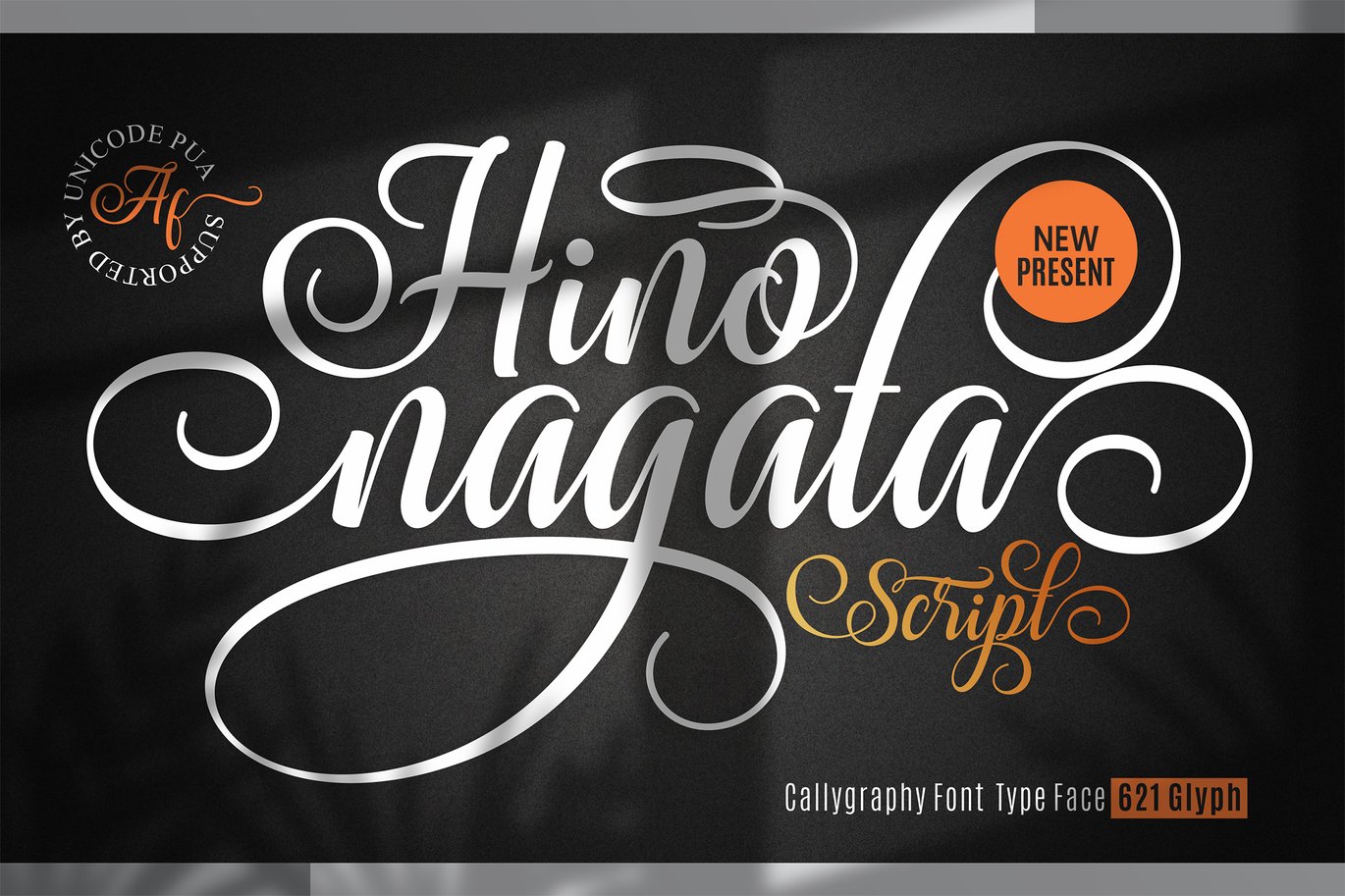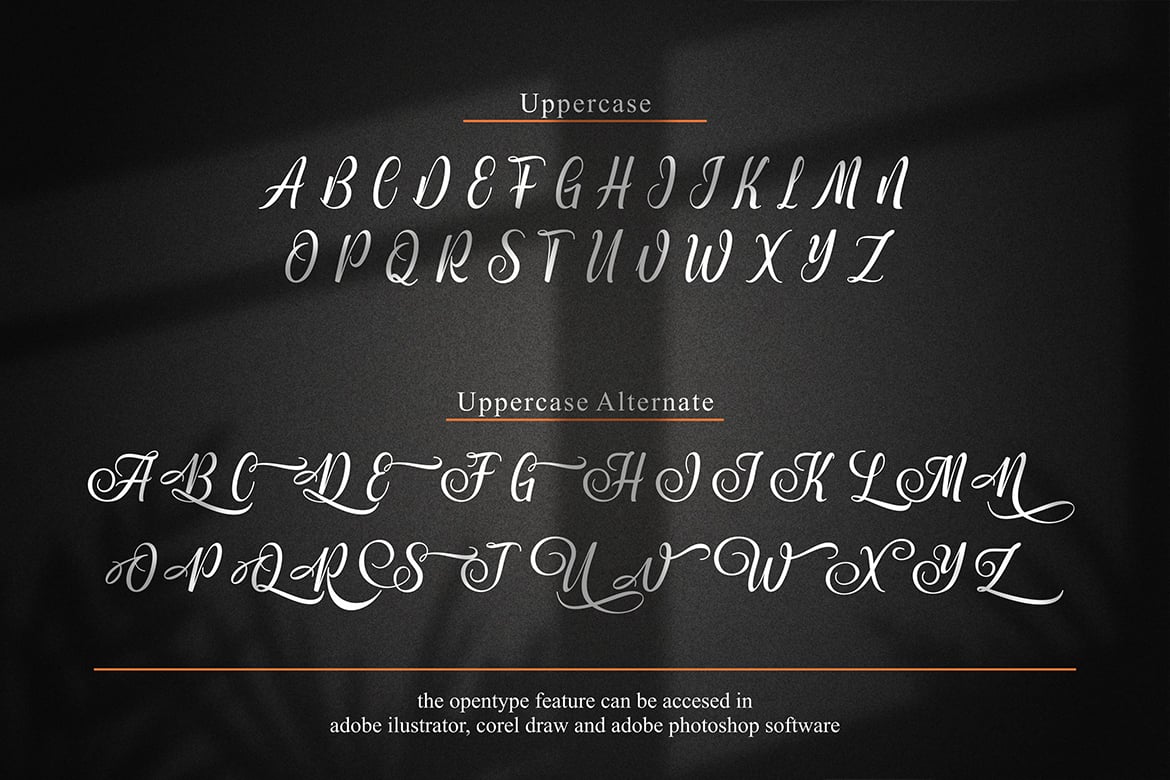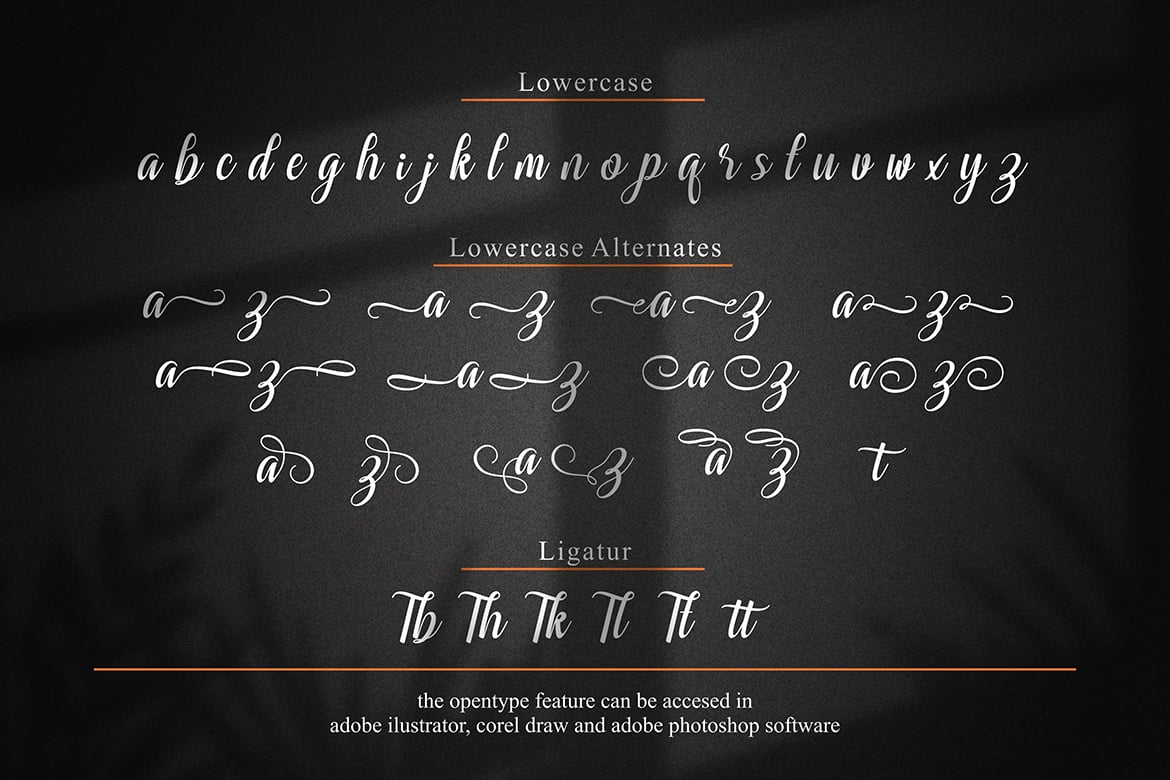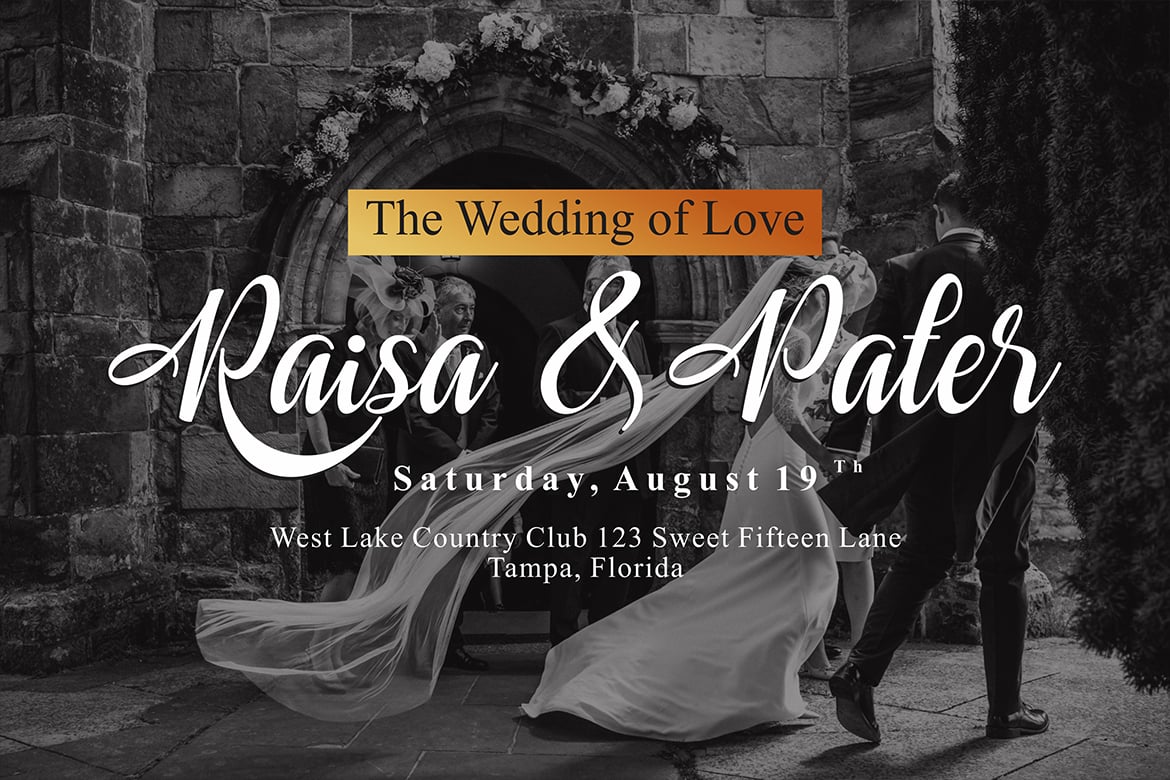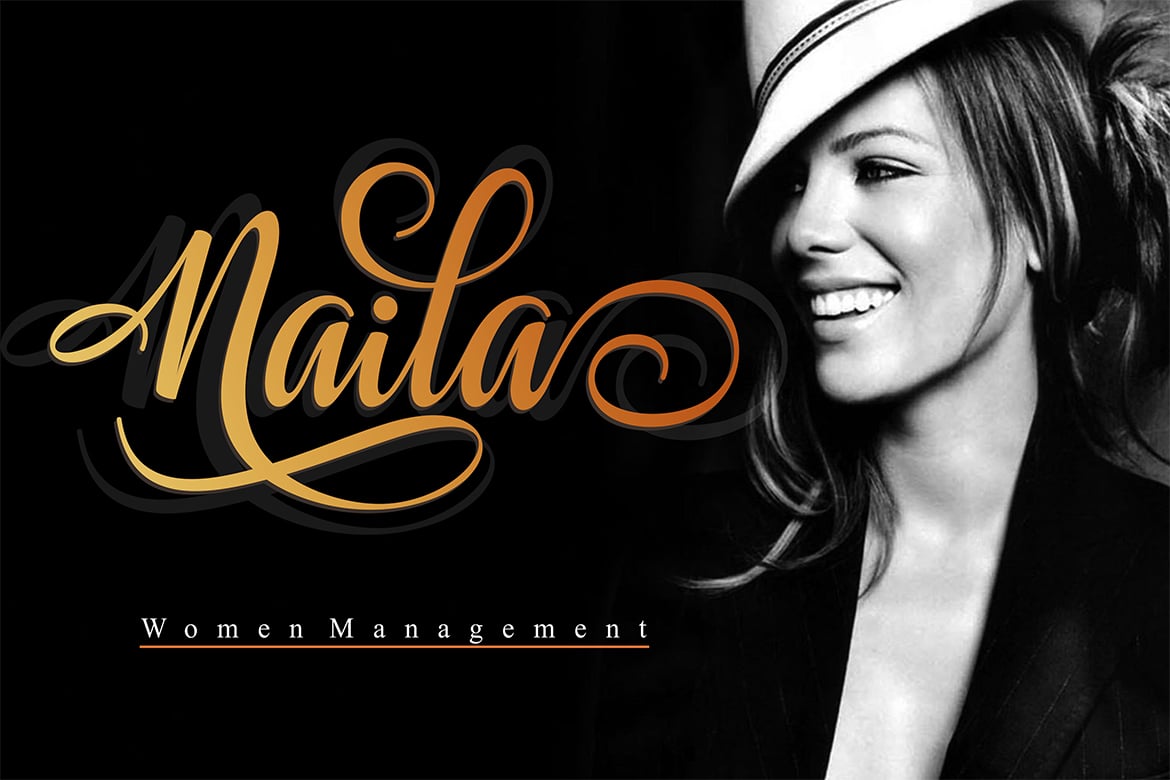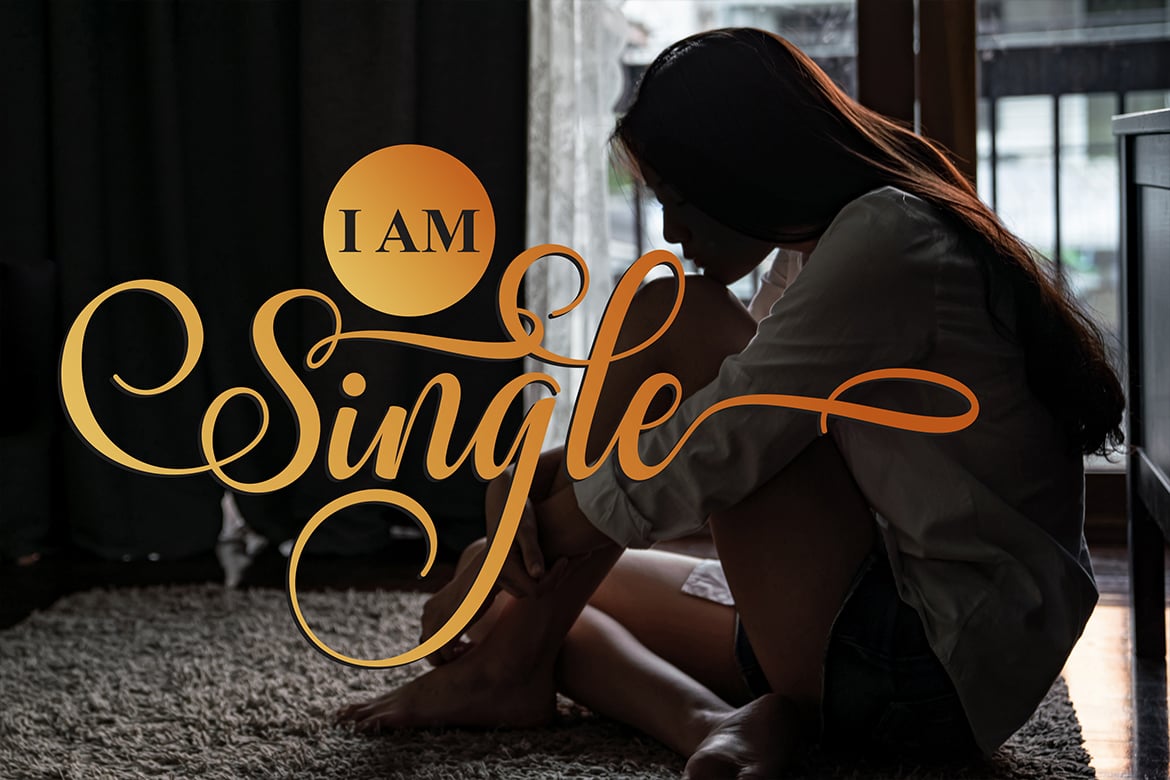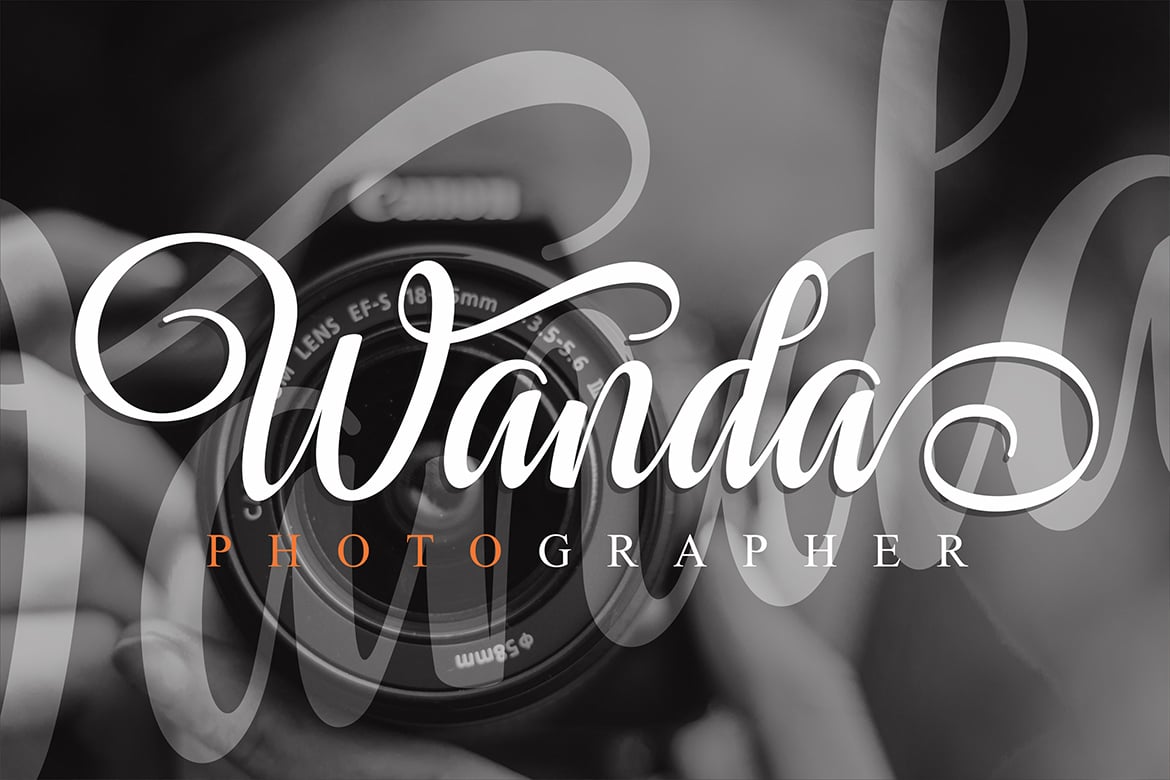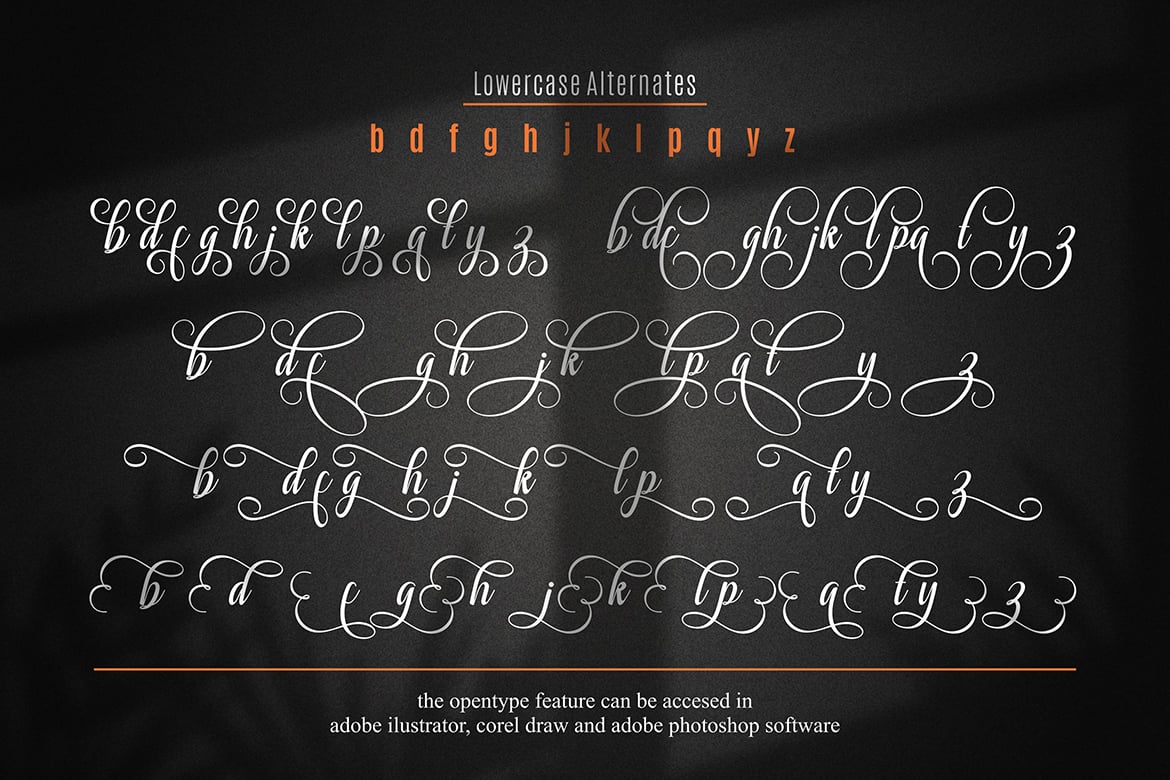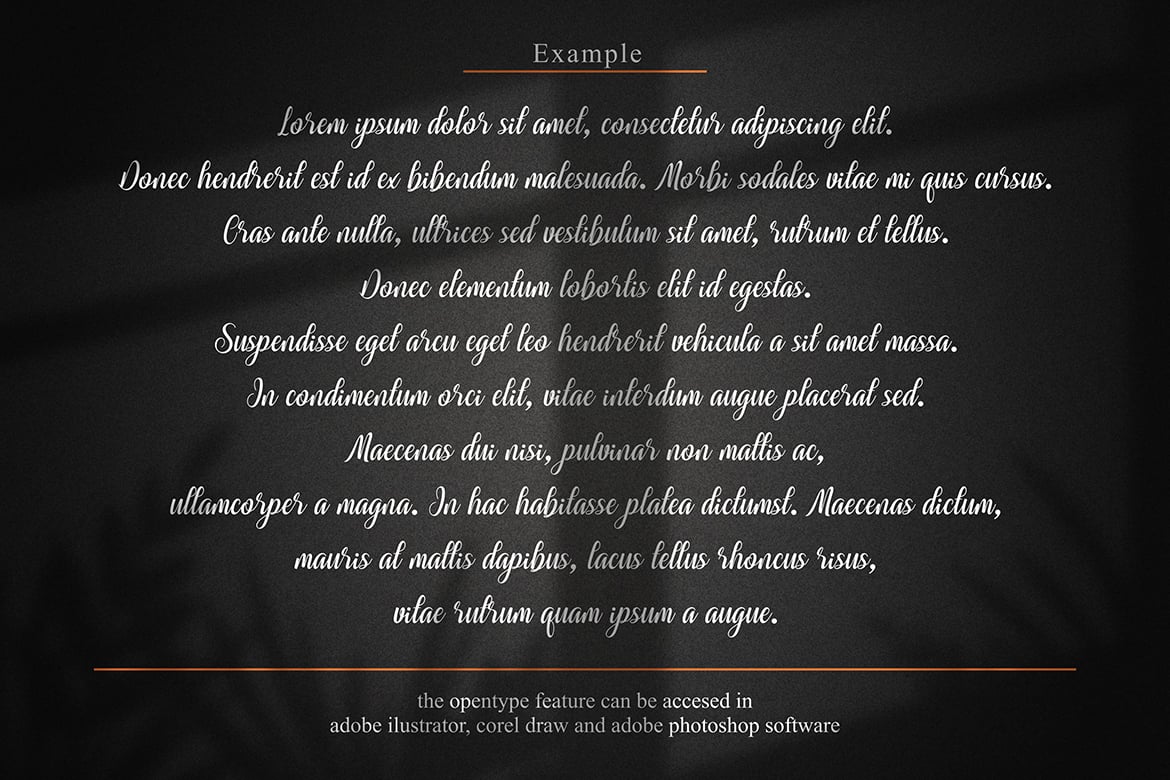
Hino Nagata Modern Calligraphy Font
Hino Nagata script with a Modern Calligraphy style, decorative characters and a dancing baseline! So beautiful on invitation like greeting cards, branding materials, business cards, quotes, posters, logo and more!!